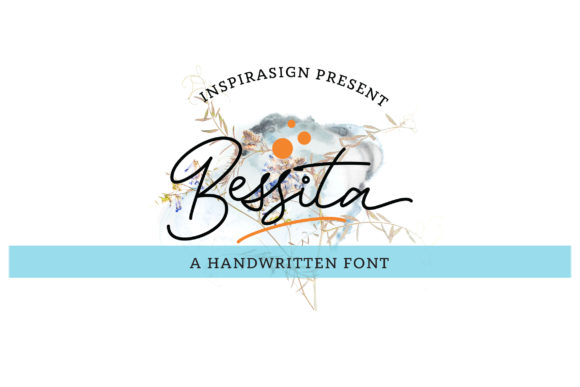
Bessita Font: Elevate Your Designs with Classic Elegance
The Bessita font is a timeless and sophisticated handwriting font that adds a touch of refinement to any design. Its elegant style makes it an ideal choice for designers and crafters looking to infuse their projects with a sense of luxury and poise. In this article, we’ll explore the features and benefits of the Bessita font, and how it can be used to elevate your designs.
What is the Bessita Font?
The Bessita font is a classic handwriting font that exudes elegance and sophistication. Its flowing lines and cursive strokes create a sense of movement and fluidity, making it perfect for designs that require a touch of refinement. The font is versatile and can be used for a wide range of applications, from logos and letterheads to posters, apparel, labels, and more.
Key Features of the Bessita Font
- Elegant Style: The Bessita font features an elegant and sophisticated style that adds a touch of luxury to any design.
- Classic Handwriting: The font’s classic handwriting style makes it perfect for designs that require a personal and human touch.
- Versatile: The Bessita font can be used for a wide range of applications, from logos and letterheads to posters, apparel, labels, and more.
Benefits of Using the Bessita Font
The Bessita font offers a range of benefits for designers and crafters, including:
- Adds a Touch of Elegance: The Bessita font adds a touch of elegance and sophistication to any design, making it perfect for luxury brands and high-end products.
- Creates a Personal Touch: The font’s classic handwriting style creates a personal and human touch, making it perfect for designs that require a personal connection.
- Versatile: The Bessita font can be used for a wide range of applications, making it a great addition to any designer’s toolkit.
- Easy to Pair: The font is easy to pair with other fonts, making it perfect for designs that require a combination of fonts.
Using the Bessita Font in Your Designs
The Bessita font can be used in a wide range of designs, including:
- Logos: The Bessita font is perfect for logos that require a touch of elegance and sophistication.
- Letterheads: The font is great for letterheads that require a professional and polished look.
- Posters: The Bessita font is perfect for posters that require a bold and eye-catching headline.
- Apparel: The font is great for apparel designs that require a touch of elegance and sophistication.
- Labels: The Bessita font is perfect for labels that require a clear and concise message.
Tips for Using the Bessita Font
Here are some tips for using the Bessita font in your designs:
- Use it Sparingly: Use the Bessita font sparingly to add a touch of elegance and sophistication to your designs.
- Pair it with Other Fonts: Pair the Bessita font with other fonts to create a unique and visually appealing design.
- Experiment with Colors: Experiment with different colors to find the perfect combination that complements the Bessita font.
| Font Name | Bessita Font |
| Author | InspiraType |
The Bessita font is a classic handwriting font that adds a touch of elegance and sophistication to any design. Its versatile style makes it perfect for a wide range of applications, from logos and letterheads to posters, apparel, labels, and more. With its easy-to-read style and elegant features, the Bessita font is a great addition to any designer’s toolkit.